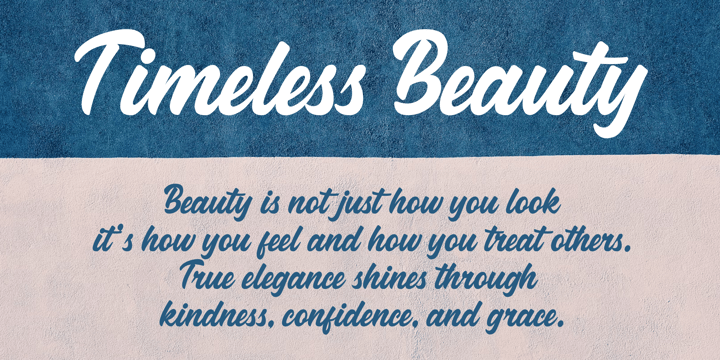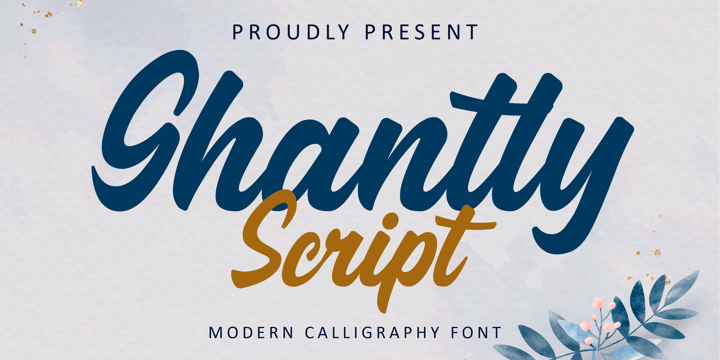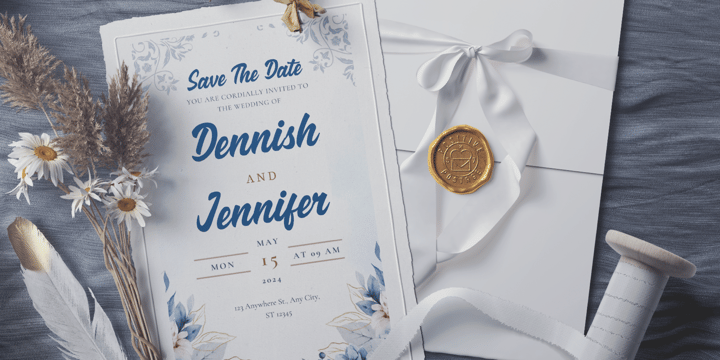
My name is Aji Waluyo, a font creator and graphic designer from Magelang, Indonesia. I focus on designing fonts that are full of personality—from fun, cartoon-style typefaces to expressive and elegant scripts.
I started as an illustrator and branding designer, but over time I became passionate about creating letters that "speak" and help visual messages feel more alive. For me, fonts aren't just about how they look—they’re about emotion, clarity, and purpose.
Every typeface I design is crafted with attention to detail, aiming to be both charming and practical. I love seeing my fonts used in packaging, branding, children’s projects, and anything that needs a touch of warmth and uniqueness.